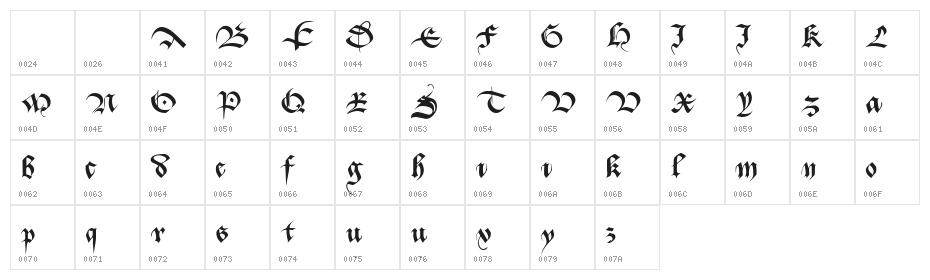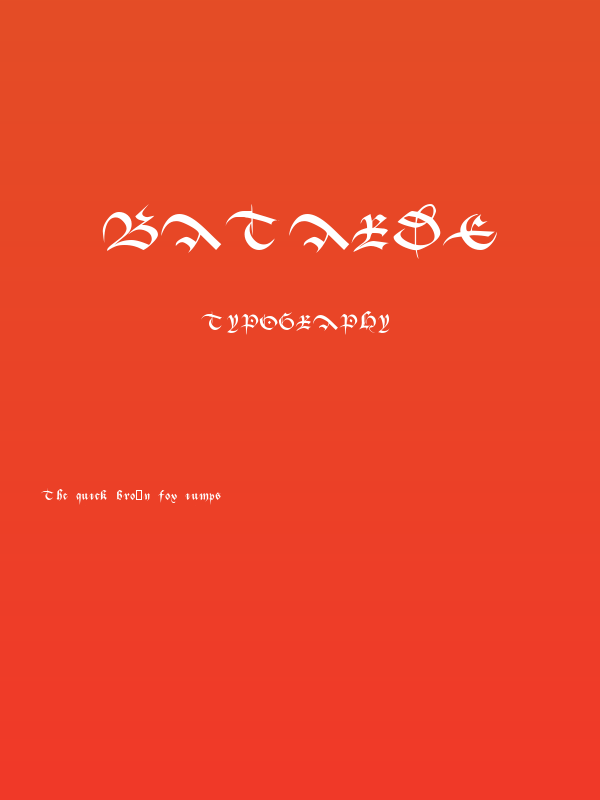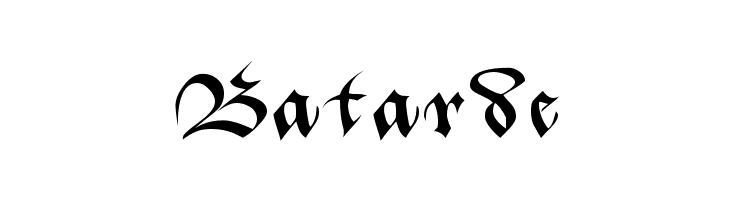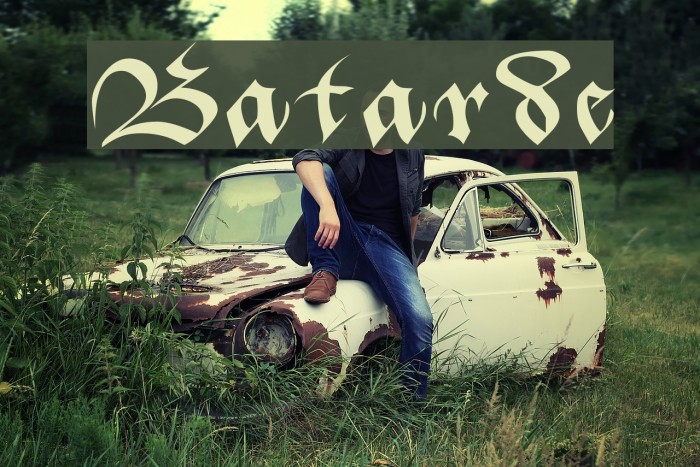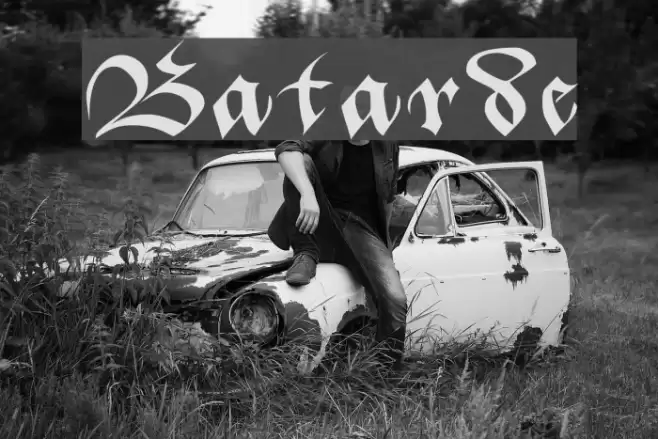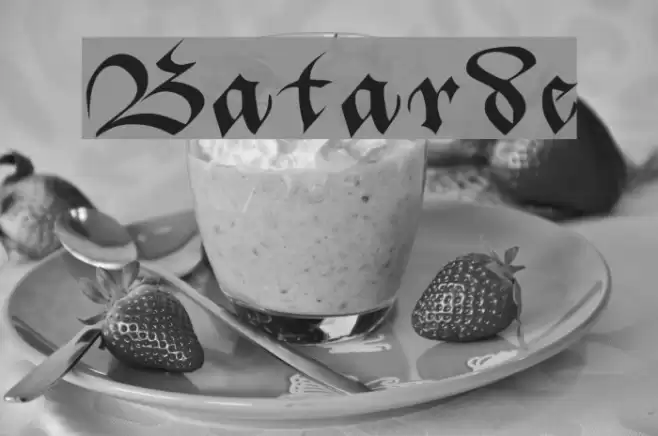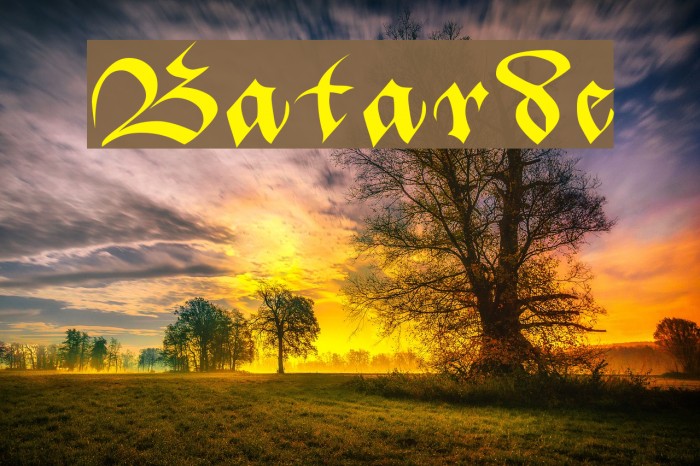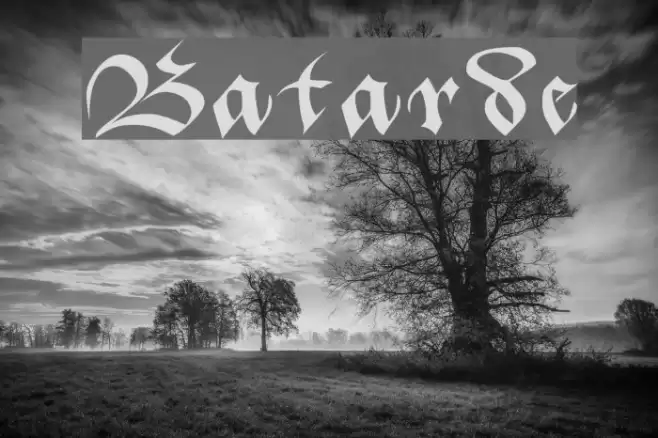
Batarde Font
Batarde Description
This font exhibits a classic blackletter style, characterized by its intricate and ornate letterforms. The uppercase letters feature elaborate flourishes and sharp angles, while the lowercase letters maintain a consistent gothic appearance with pointed edges and dramatic strokes. The overall design is reminiscent of medieval script, evoking a sense of historical elegance and sophistication. The font's bold and decorative nature makes it stand out, with high contrast between thick and thin strokes, enhancing its visual impact. The absence of numerals and special characters suggests a focus on traditional text applications.